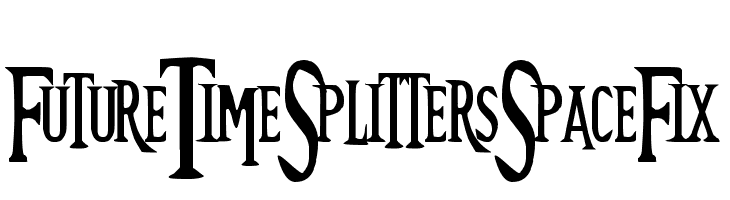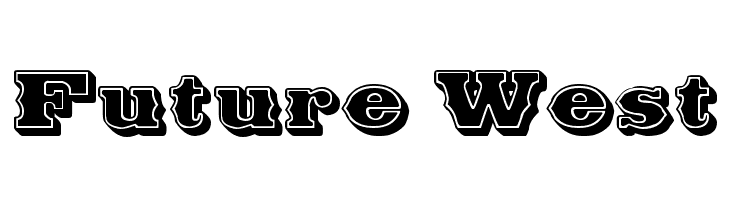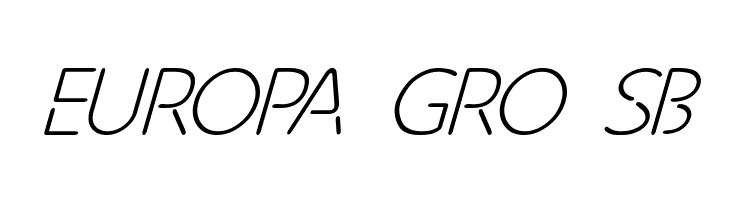
Energetic handwritten script font.
A futuristic, three-dimensional font with sharp, angular edges and a tech-inspired design.
A futuristic, geometric font with angular letterforms and a modern aesthetic.
A bold, italic, futuristic font with angular, streamlined characters.
A bold, high-contrast serif font with dramatic, angular serifs and a distinctive style.
A bold, high-contrast font with elongated, angular letters and a dynamic style.
A bold, dripping font with a liquid-like, horror-inspired style.
A bold, decorative font with a vintage western style and three-dimensional effect.
A bold, futuristic font with sharp angles and geometric shapes.
A bold, angular, and futuristic italic font with a strong, tech-inspired design.